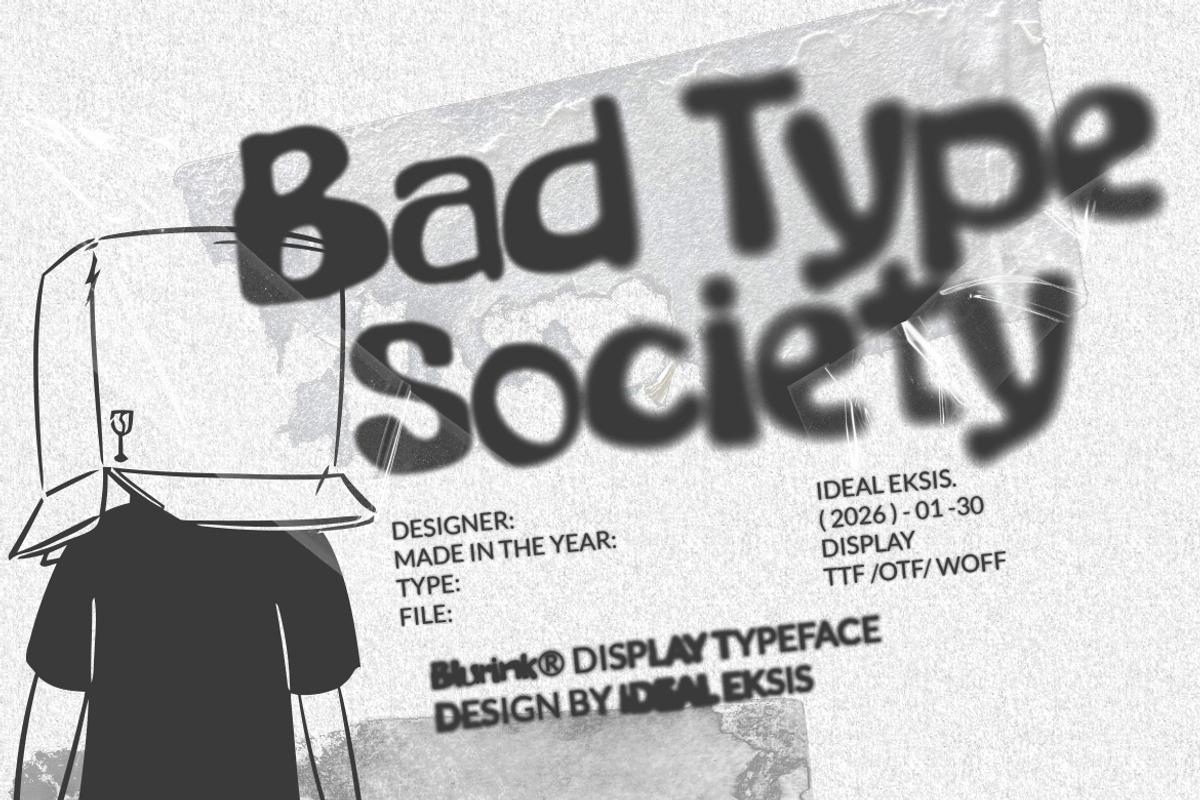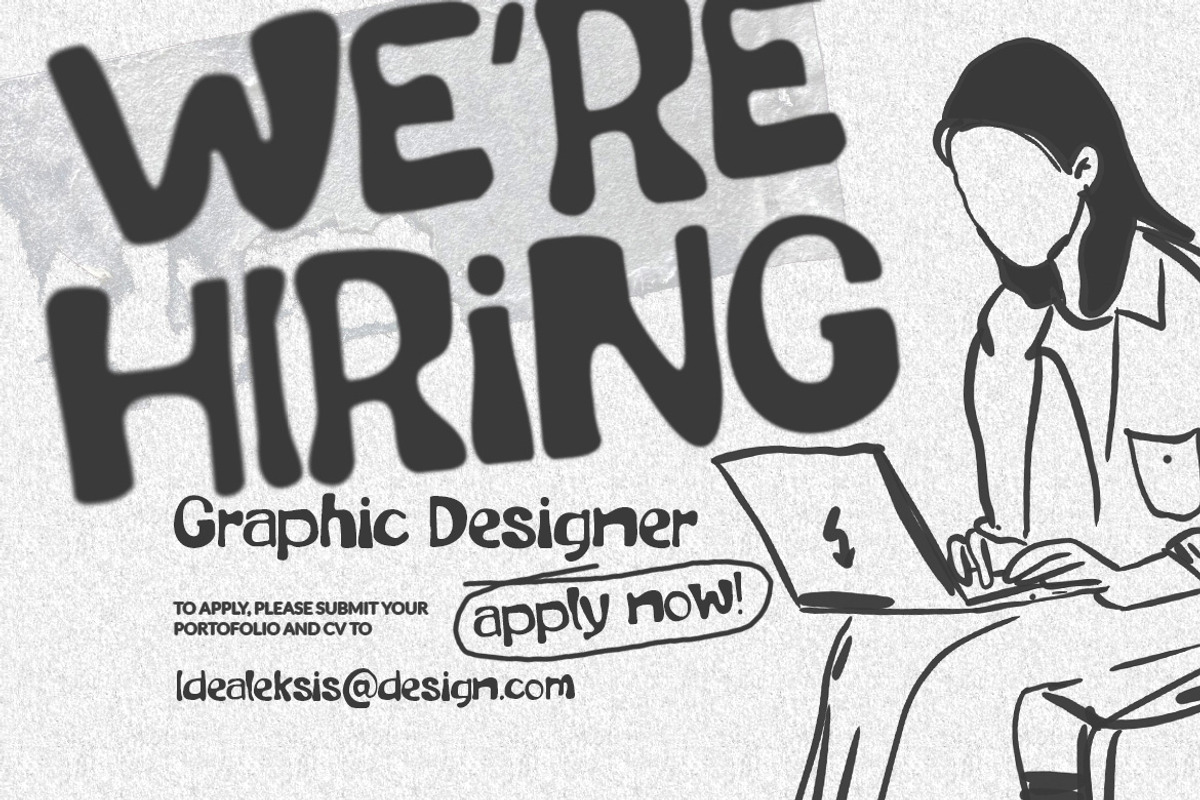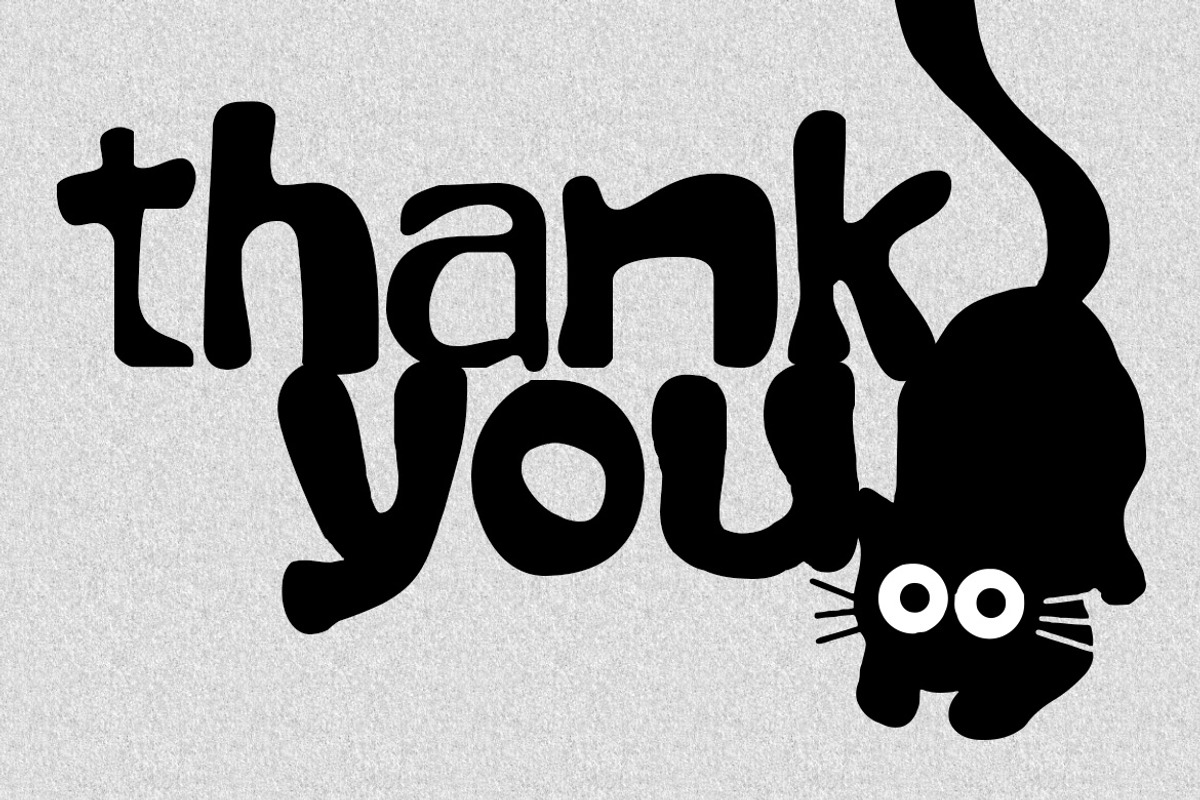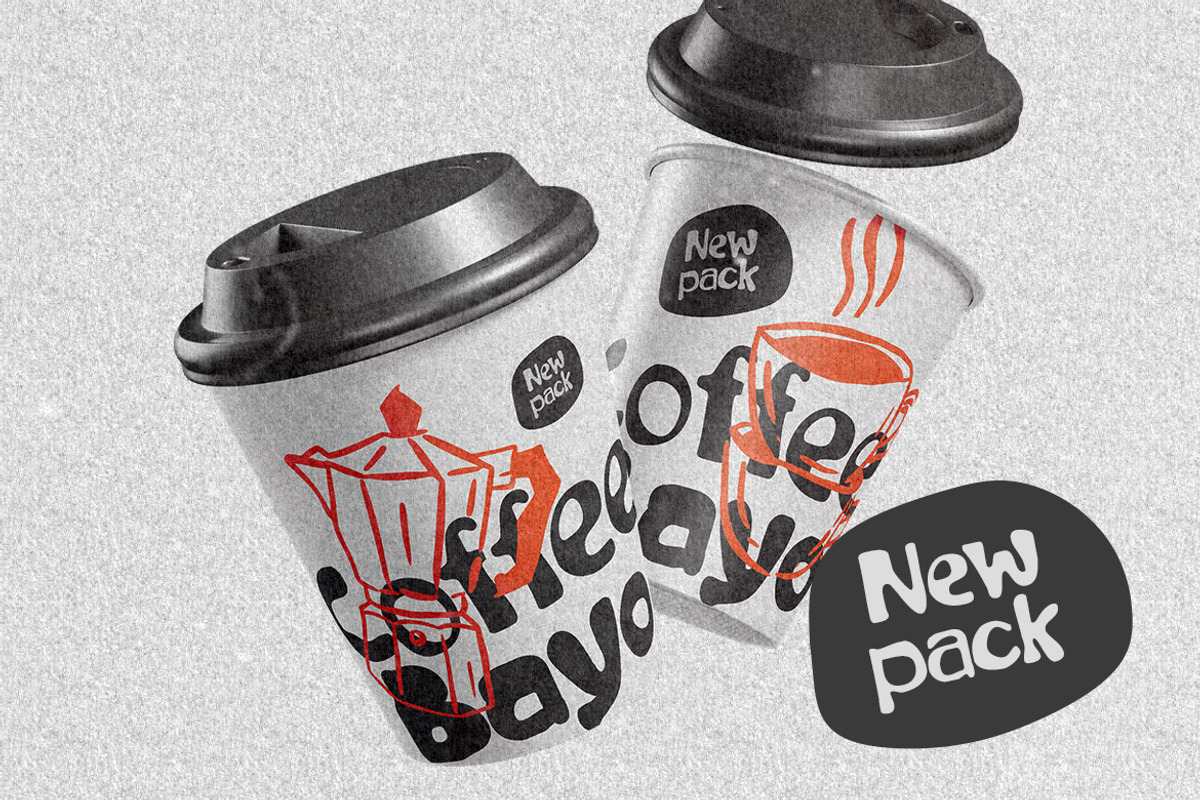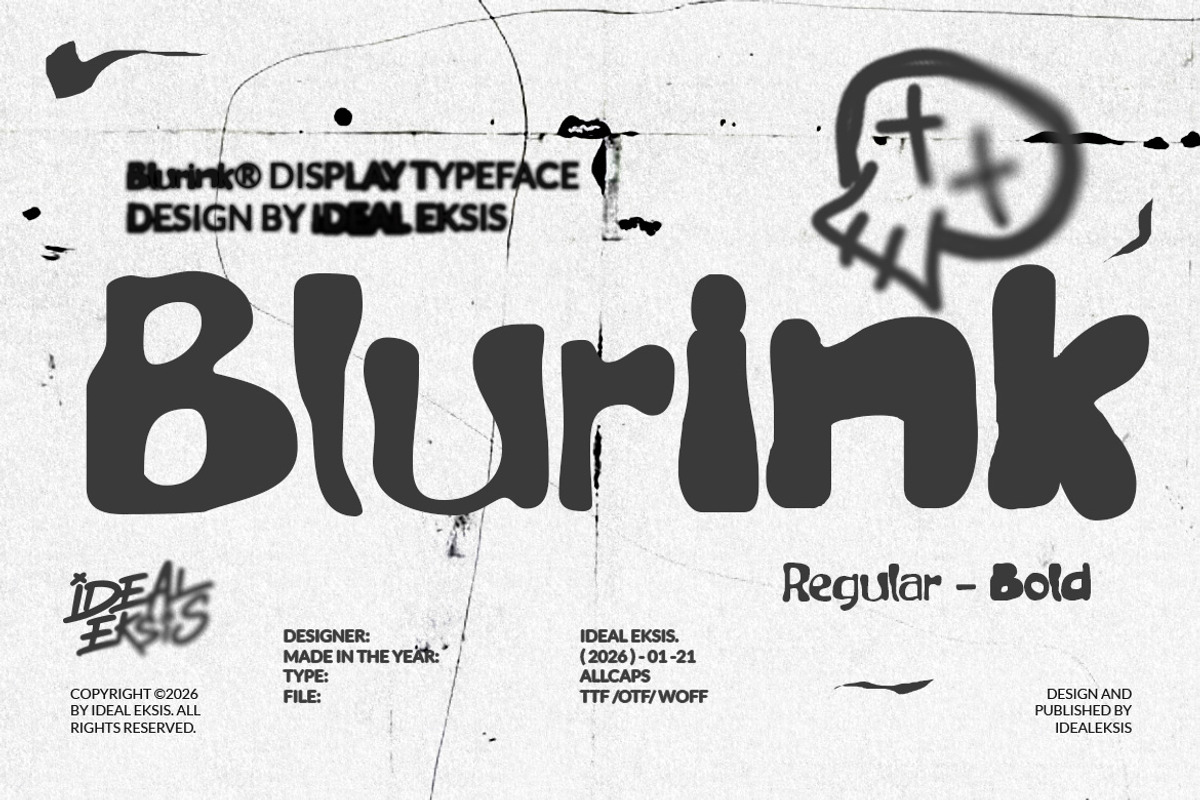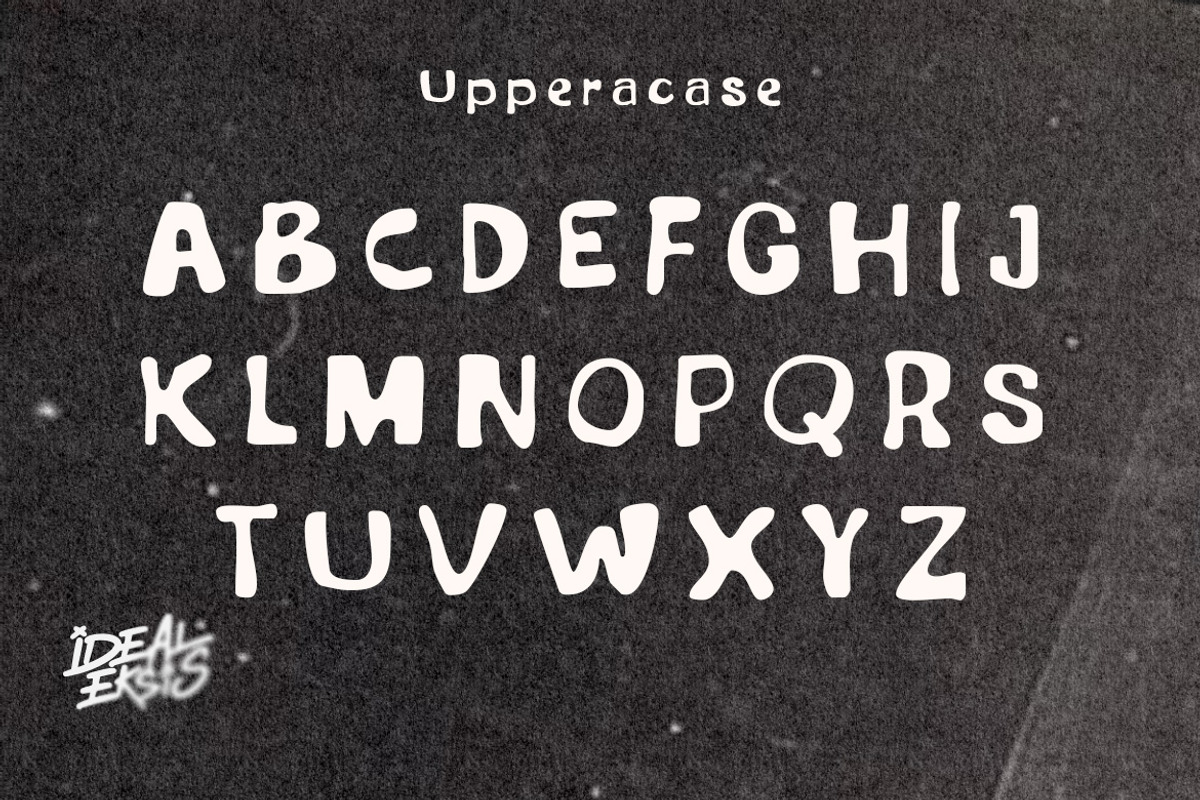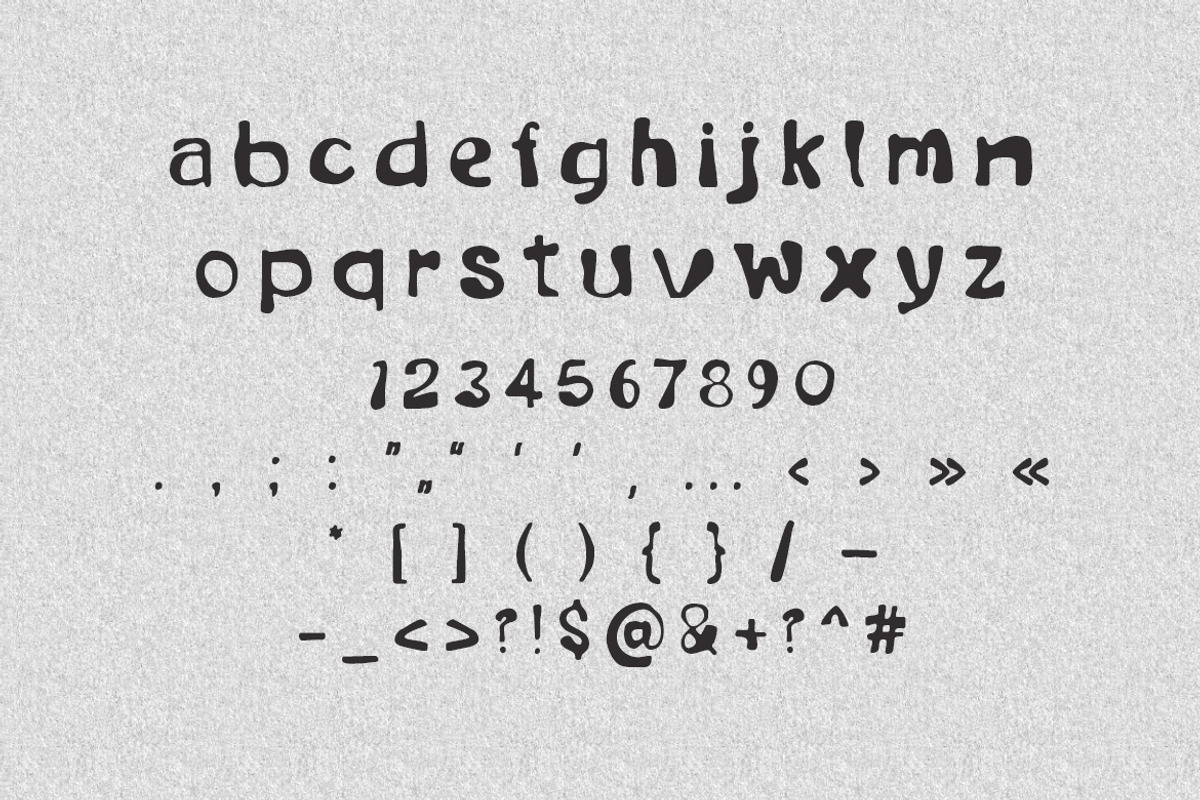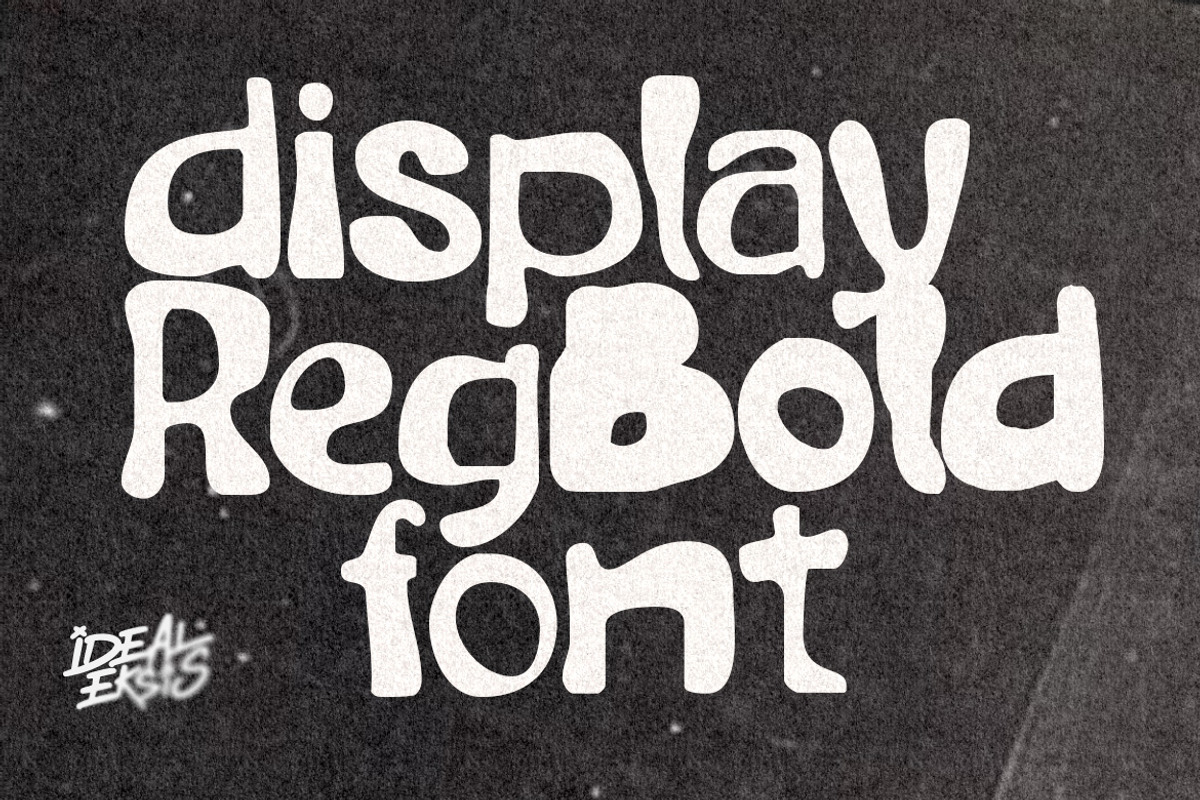
Blurink
Blurink is a bold, heavy-weight display typeface characterized by its soft, rounded terminals and organic, slightly distorted stroke edges. The letterforms exhibit a playful yet edgy aesthetic, reminiscent of street art and liquid ink textures. Its high-contrast, chunky proportions create a strong visual impact, making it ideal for headlines, poster designs, and branding projects that require a raw, unconventional feel. The lack of sharp corners and the fluid, wobbly outlines contribute to a hand-drawn, DIY vibe that fits perfectly within contemporary urban design contexts.